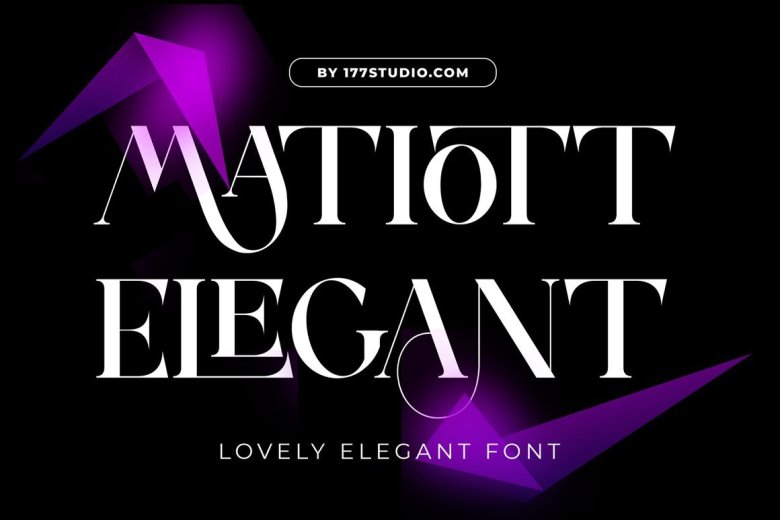
Matiott Elegant Font
Matiott Font a chunky Serif font with an edge – is a lovely elegant font for branding and logo design. it’s a cool modern take on a retro classic, and it’s ready to make a lasting impression on your merchandise.
Matiott Font is a serif typeface made mainly for headlines, titles, and other short texts and is well-suited for advertising, vintage mood board, branding, logotypes, packaging, titles, editorial design and modern and vintage design.